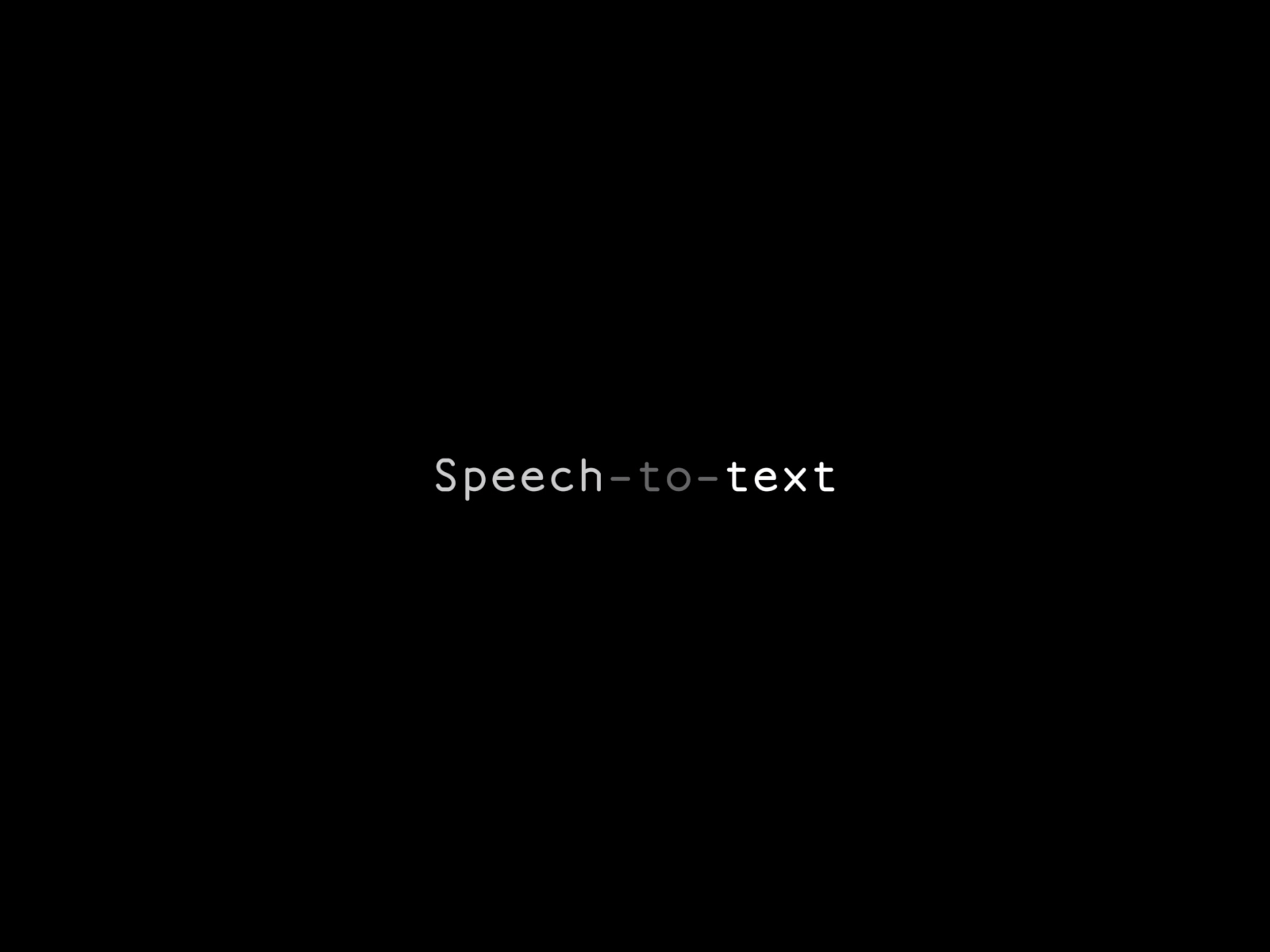
A sign of a great elocutionist is when you can hear their words echoing in your head, even if you’re reading them on paper. Martin Luther King, Jr. was (obviously) a great elocutionist, as was his wife, Coretta Scott King. When you see the words, “because I’ve been to the mountaintop,” you don’t read them so much as listen to the familiar rhythm—the emphasized “been,” the deepened “mountaintop.” It’s impossible to separate the line of text from the sound of MLK’s prophetic last speech.
Oratory isn’t something easily captured by letterforms on a page, let alone the immovable stone inscriptions on a memorial. But for one of the design proposals put forth for a memorial to the Kings at Boston Common, it’s a key part of the design.
“From the beginning, the concept was that all the words on the site would be spoken, not written,” says graphic designer David Reinfurt, founder of O-R-G and one of the team working on the proposed memorial. For the project, Reinfurt developed a speech-to-text typeface that would visualize the sonic qualities of the Kings’ famous speeches right onto the stone face of the memorial.
Reinfurt developed a software that uses Google Cloud Speech-to-Text to turn the audio files of excerpts from the speeches into text. The software measures the loudness or softness of each word spoken, and renders the words on a grayscale. The loudest words are colored bright white and the softer words are gray. The grayscale is then used as a blueprint for the depth of the inscriptions: white (loud) words are inscribed deeper into the black stone of the memorial, whereas grayer (softer) words are most shallow. Reinfurt designed the characters of the typeface based on Artisan, one of the fonts that came with the IBM Selectric, the typewriter in vogue at the time the Kings’ were writing and delivering their famed speeches.
The font is part of a memorial design that features a series of black stone bridges on a raised plateau on Boston Common. While the proposal is one of the five finalists, the team behind the design—which consists of Reinfurt, artist Adam Pendleton, architect David Adjaye, and cultural agency Future Pace—is still waiting to hear if they’ve won the competition. Longform excerpts of the speeches would run along the stone ramps that descend from the bridge into the park, and on a series of sculptural plinths. They’ll also be displayed digitally on screens oriented underneath the bridge. An accompanying app will use location tracking to play video of the grayscale text as visitors pass by the transcribed speeches on the memorial.
“Rather than cherrypicking the most resonant quotes, like on most memorials, we wanted to include long excerpts of their speeches on the site, and give visitors an idea of the character with which those speeches were delivered,” says Reinfurt. He adds that the brief for the competition was that the memorial should be looking forward, rather than backwards, and indicate that the Kings’ actions, and words, reverberate just as strongly in the context of today.
“Speeches are literal calls to action,” says Reinfurt. “When you say something in public it has consequences, and their speeches had direct consequences in the world.”